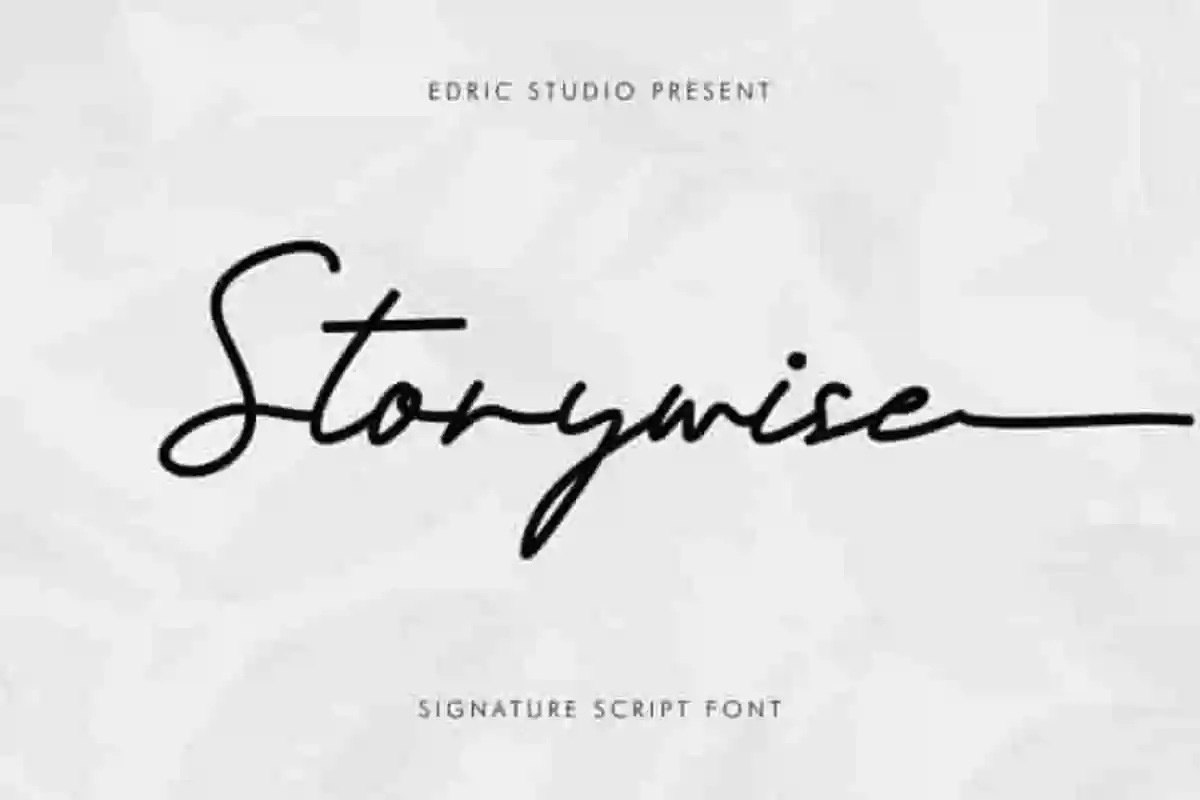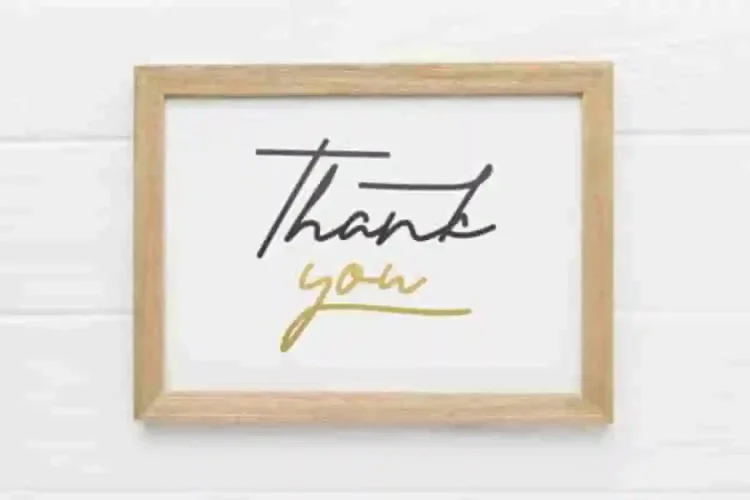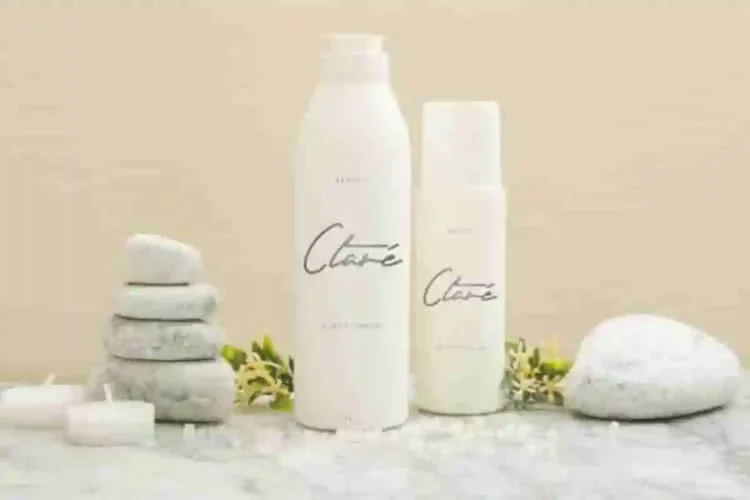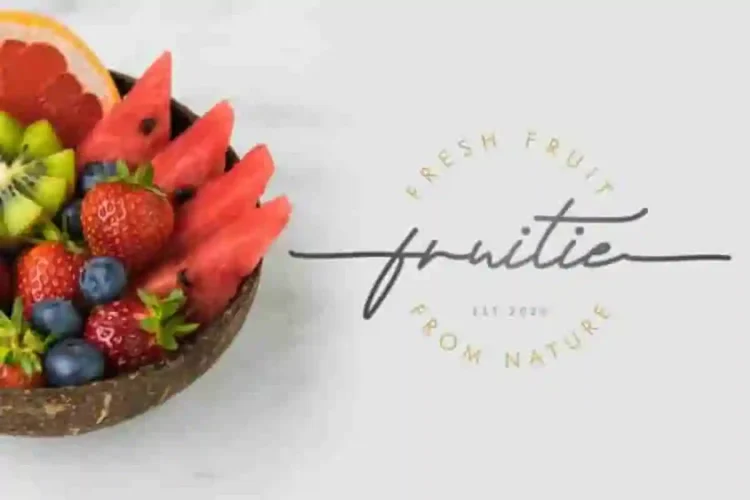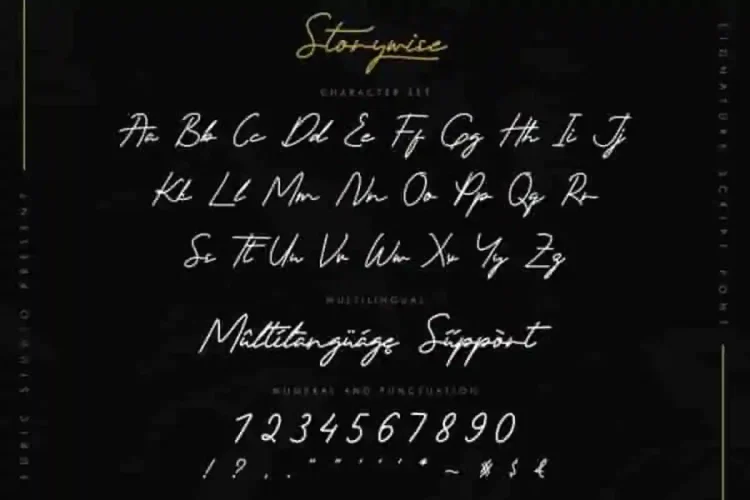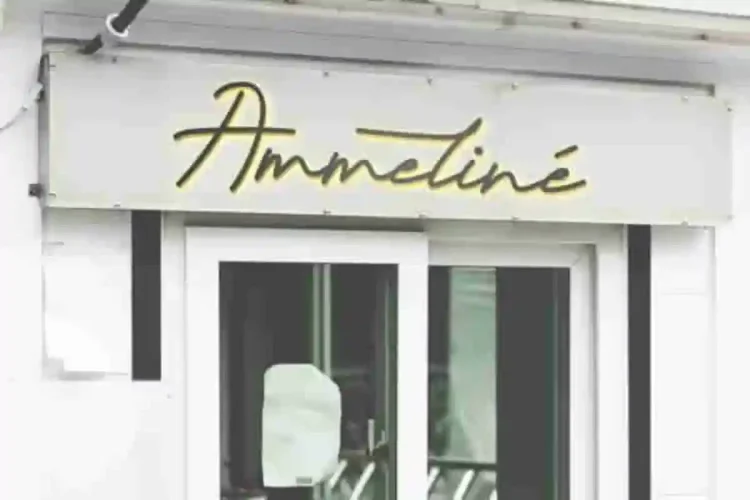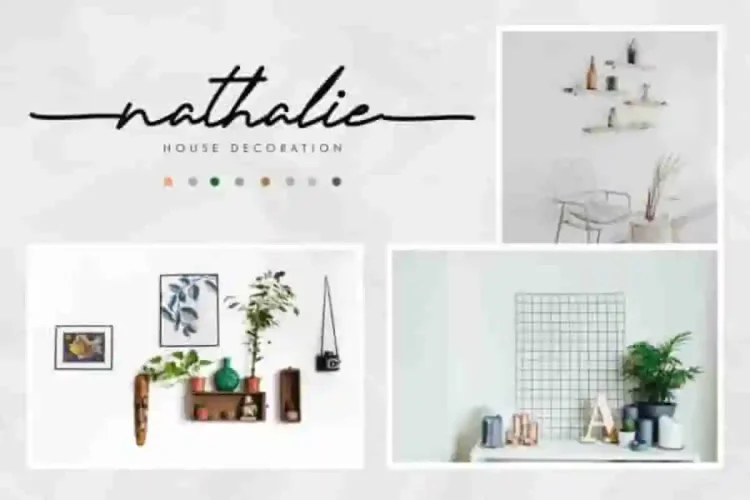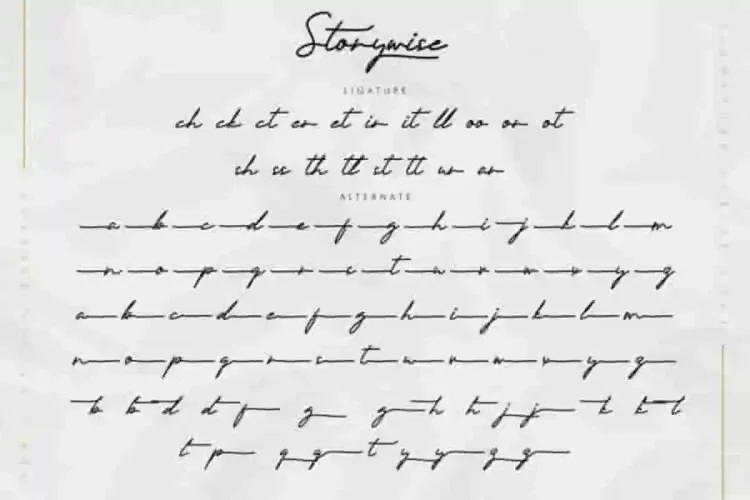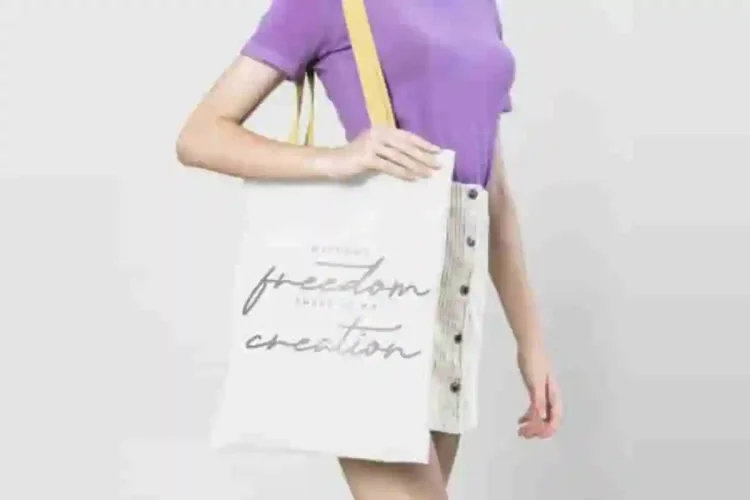
Storywise Signature Script Font
Storywise Signature Font is a signature font script family with elegant handwriting style, handcrafted from our Studio here in, Indonesia. The designers of this beautiful typeface is Widi and Sarah.
Storywise Signature Font is an original signature script typeface with unique natural look. It has a stunning characters set, perfectly managed with well spaced and kerning.Storywise captures the beauty of natural handwriting with a stylish, elegant, and timeless flow.
Storywise Signature Font will be great for any projects (with extended license) including : branding, logo, stationery, business card, signage, flyer, brochure etc. Almost all industries will be match for this typeface: wedding, events, real estate, architect, law firm, florist, gardening, makeup artist, travel, hotel, musician etc.